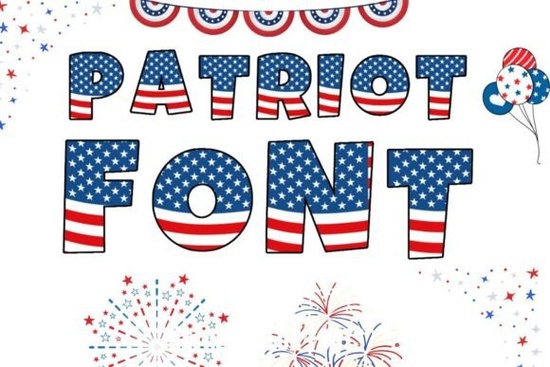
What makes this patriotic font different from a standard black font?
Most fonts come as a single solid color, and you add the red, white, and blue later. This one is an OpenType‑SVG color font, so the letterforms are already filled with the classic patriotic palette. That means you get stylized, high‑contrast red letters, white stripes, and blue accents built right into the characters. No need to stack cut files or hunt for hex codes. The design is clean, bold, and compact, so it stays readable even on small items like koozies or button badges.
For print-on-demand stores, this can cut down your design time noticeably. You type your slogan, adjust the size, and the colors stay crisp without any extra work. The font’s compact letterforms also help your text fit neatly onto shirt fronts, mug wraps, and slim banners.
What kind of projects work best with this patriotic lettering?
Because the font is so festive and instantly recognizable, it shines on project items that need a fast hit of USA spirit. Some favorites among crafters and small business owners include:
- 4th of July party decor: cupcake toppers, banners, drink tags, and porch signs.
- Memorial Day and Veterans Day gifts: etched glass tumblers, framed prints, and honor boards.
- Apparel and accessories: patriotic t‑shirts, hoodies, hats, and tote bags.
- Print‑on‑demand products: mugs, pillows, phone cases, and stickers.
The compact letter width helps when you need to fit longer phrases like “Land of the Free” on a narrow area. Plus, the built‑in colors mean you don’t have to worry about misaligned color layers on a multi‑color vinyl project after weeding.
Does the font come with any extras or alternates?
The character set includes standard uppercase, lowercase, numbers, and basic punctuation all colored. That covers most slogans, captions, and monograms. Since the font is designed to be compact, there are no swashes or decorative alternates in this particular pack, but the bold simplicity keeps your message clean and easily legible at a distance.